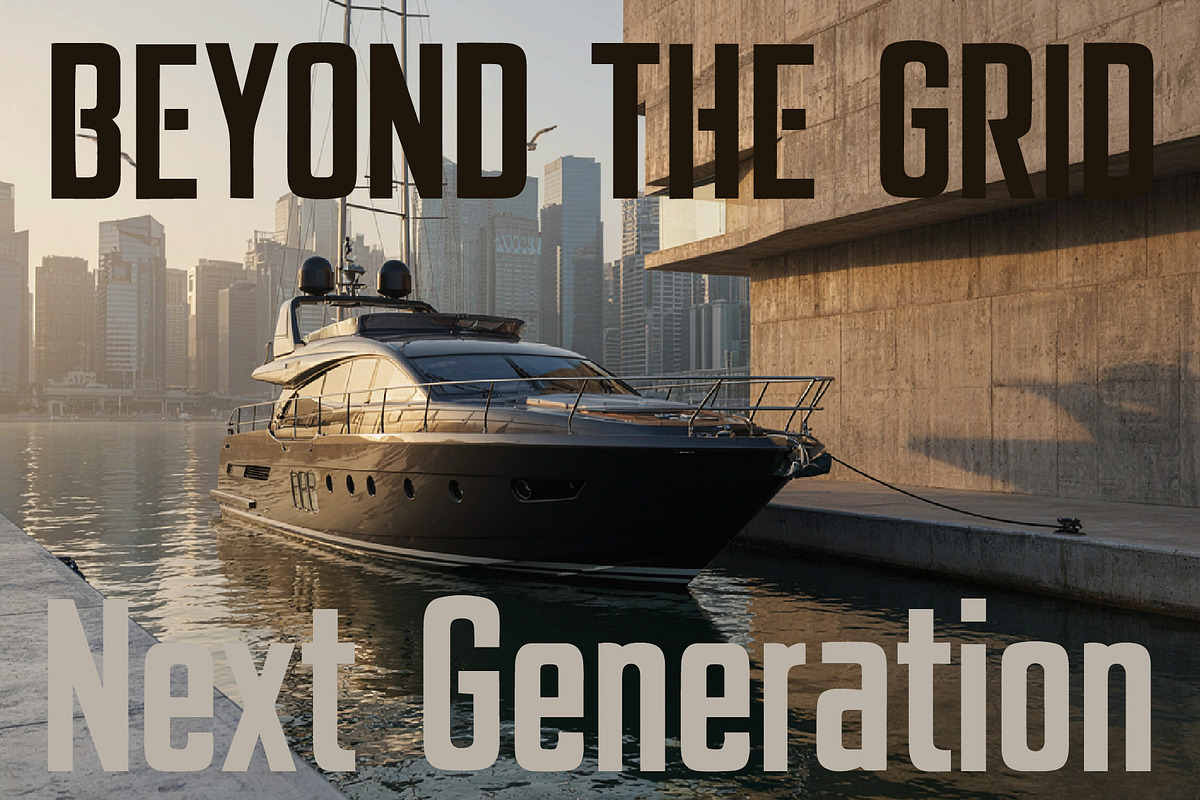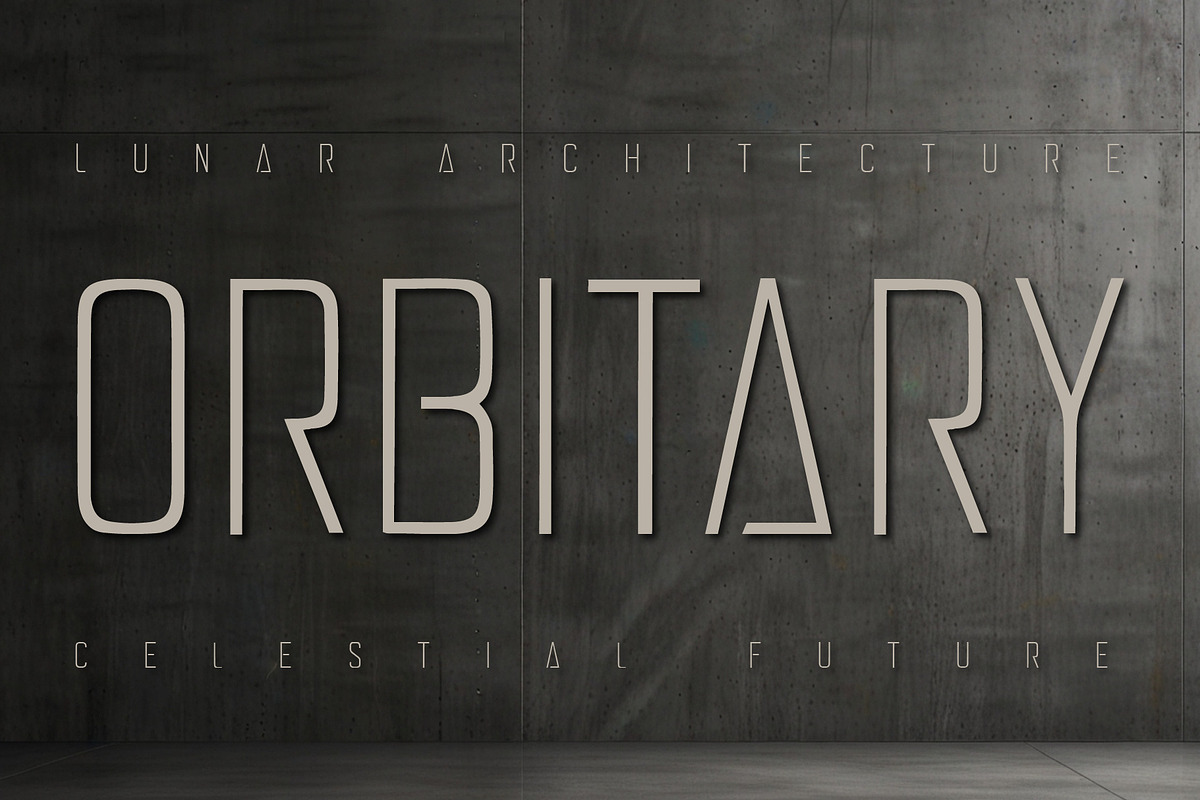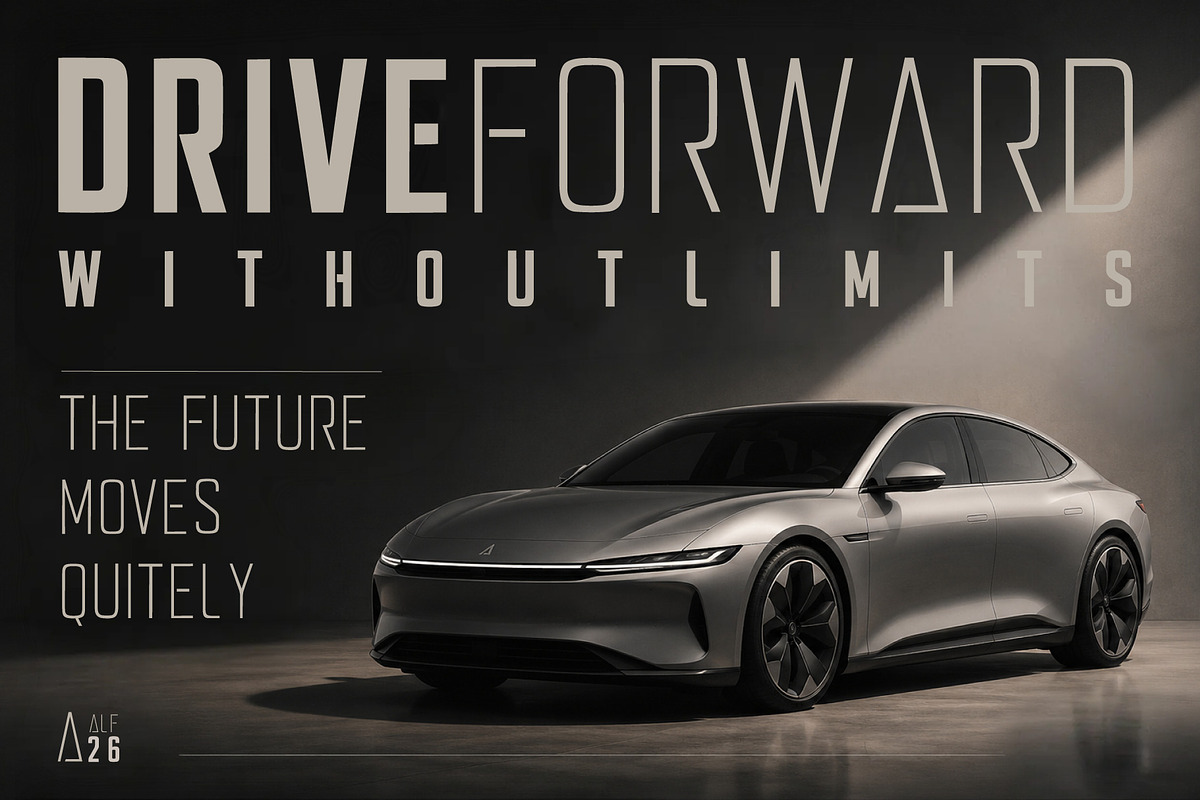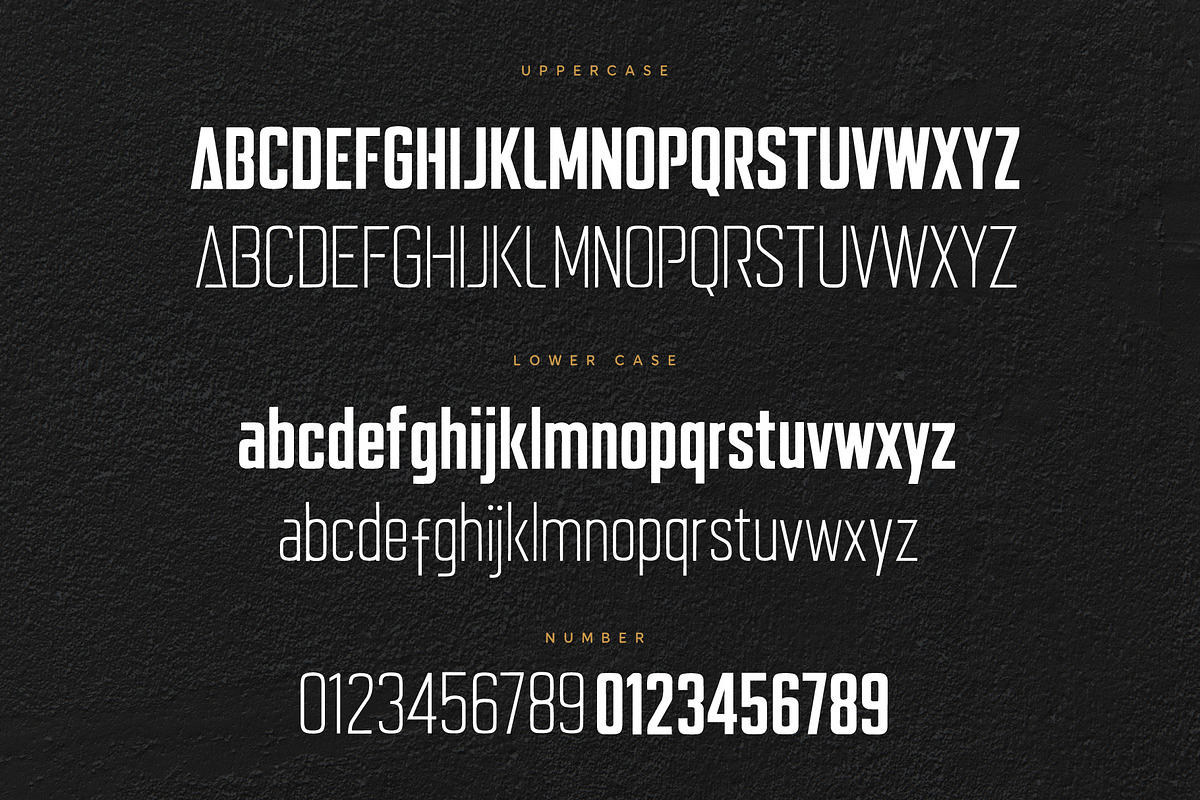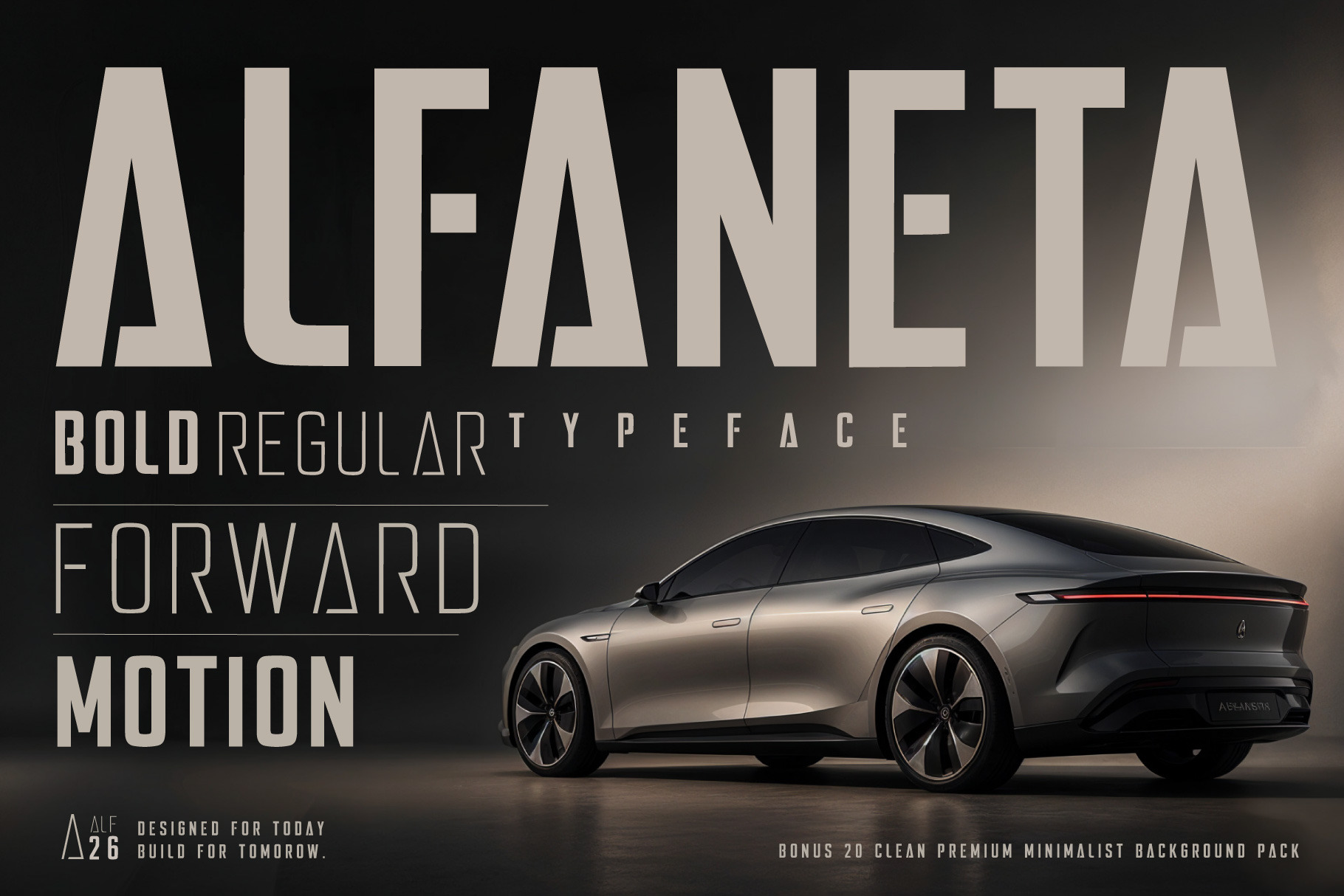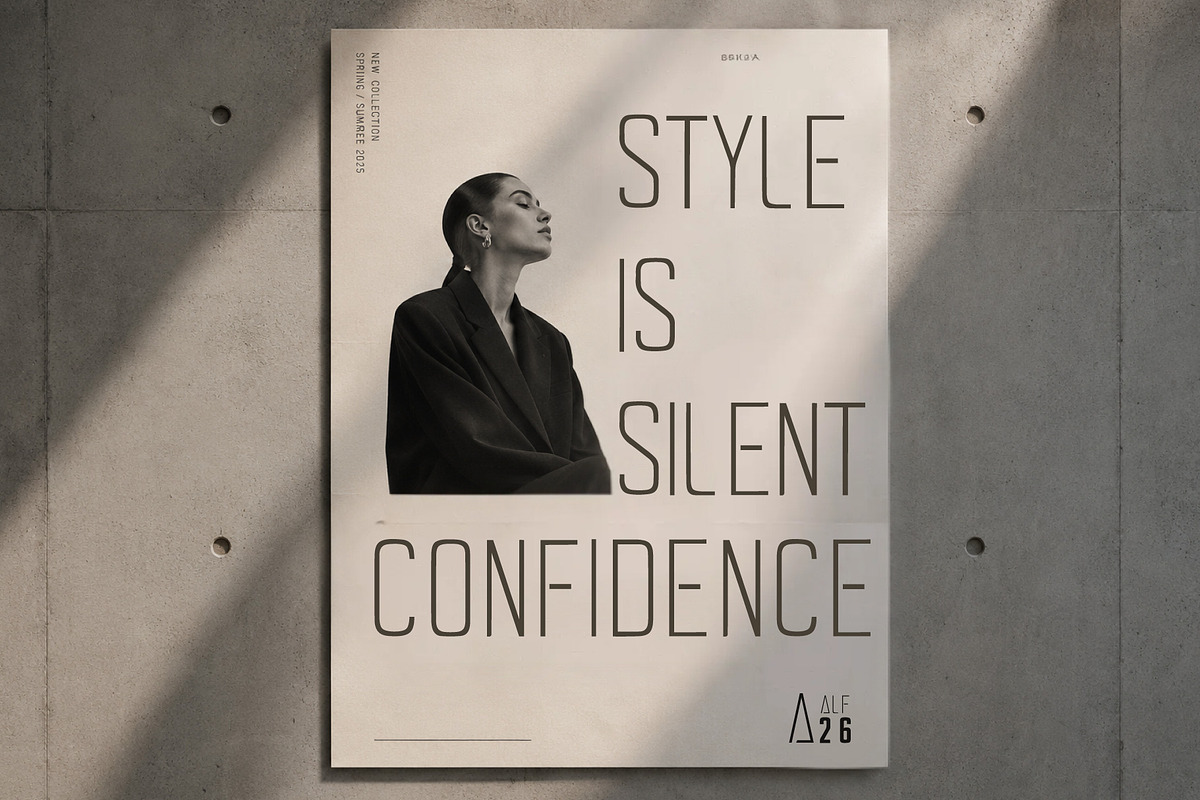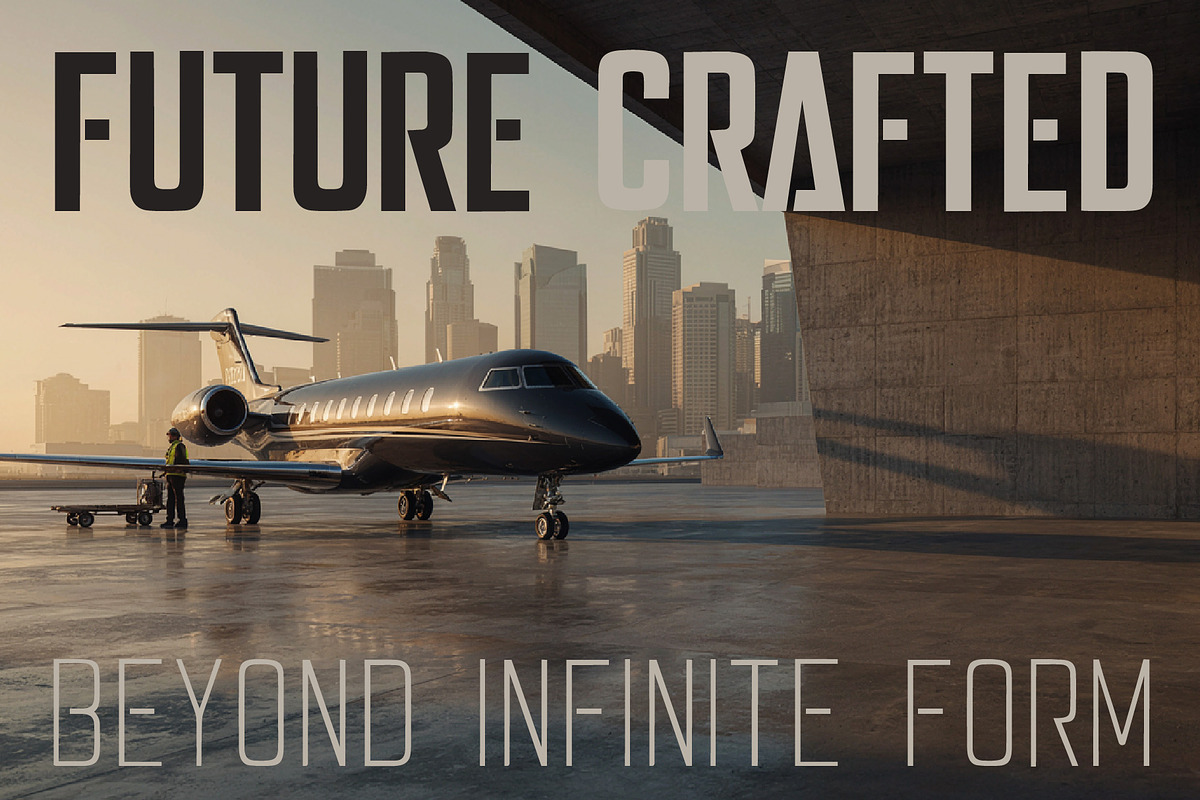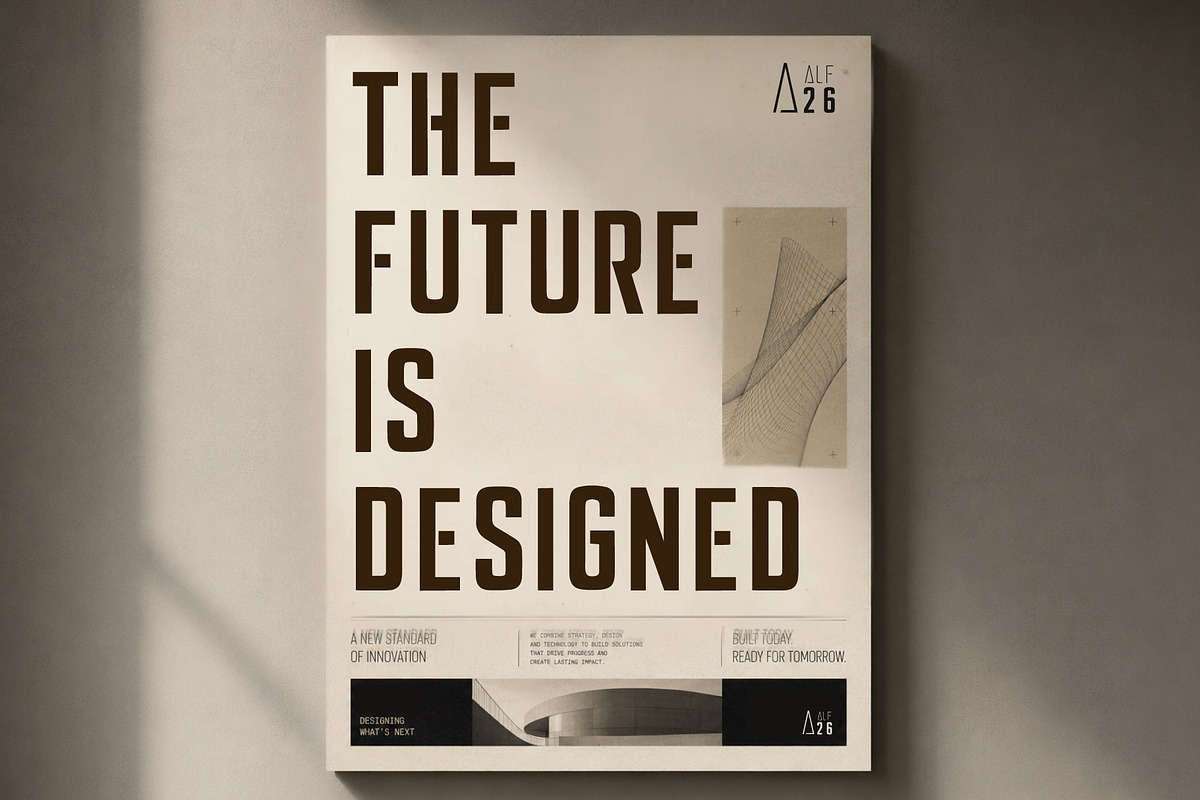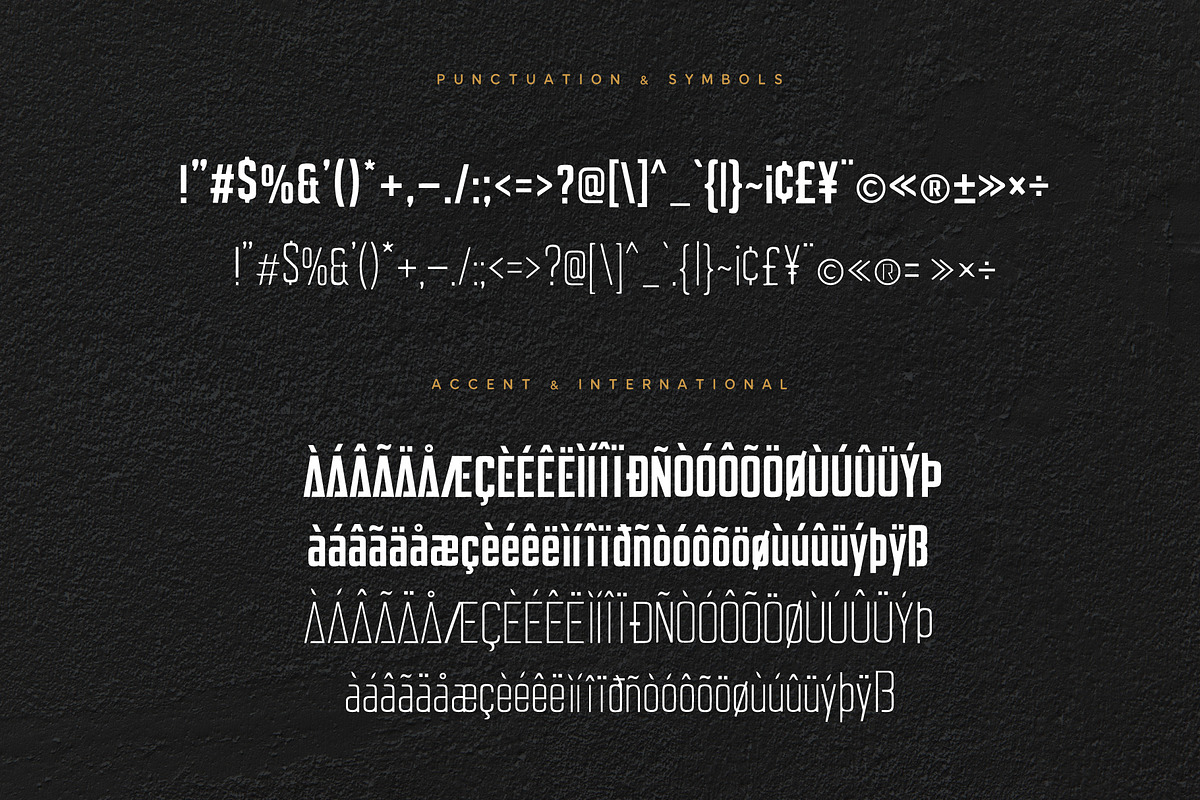
ALFANETA – Modern Branding Typeface
ALFANETA
Modern Sans Serif Typeface
ALFANETA is a modern sans serif typeface designed to deliver a perfect balance of elegance, futurism, and professional branding appeal. Featuring clean geometric forms, refined proportions, and contemporary letter construction, ALFANETA brings a sophisticated visual presence to any design project.
Available in Regular and Bold styles, ALFANETA offers the flexibility needed to create strong visual hierarchies while maintaining a cohesive and premium brand identity. The Regular style provides a clean and versatile foundation, while the Bold style adds confidence, impact, and modern character. Its minimalist yet distinctive design makes ALFANETA ideal for luxury brands, technology companies, startups, fashion labels, editorial layouts, packaging, logos, websites, advertising campaigns, and social media content.
• Regular & Bold Styles • Modern Sans Serif Design • Elegant & Futuristic Aesthetic • Clean and Professional Letterforms • Strong Branding Capability
Create bold, sophisticated, and future-ready designs with ALFANETA, a modern sans serif typeface crafted to elevate brands with confidence, clarity, and timeless style.